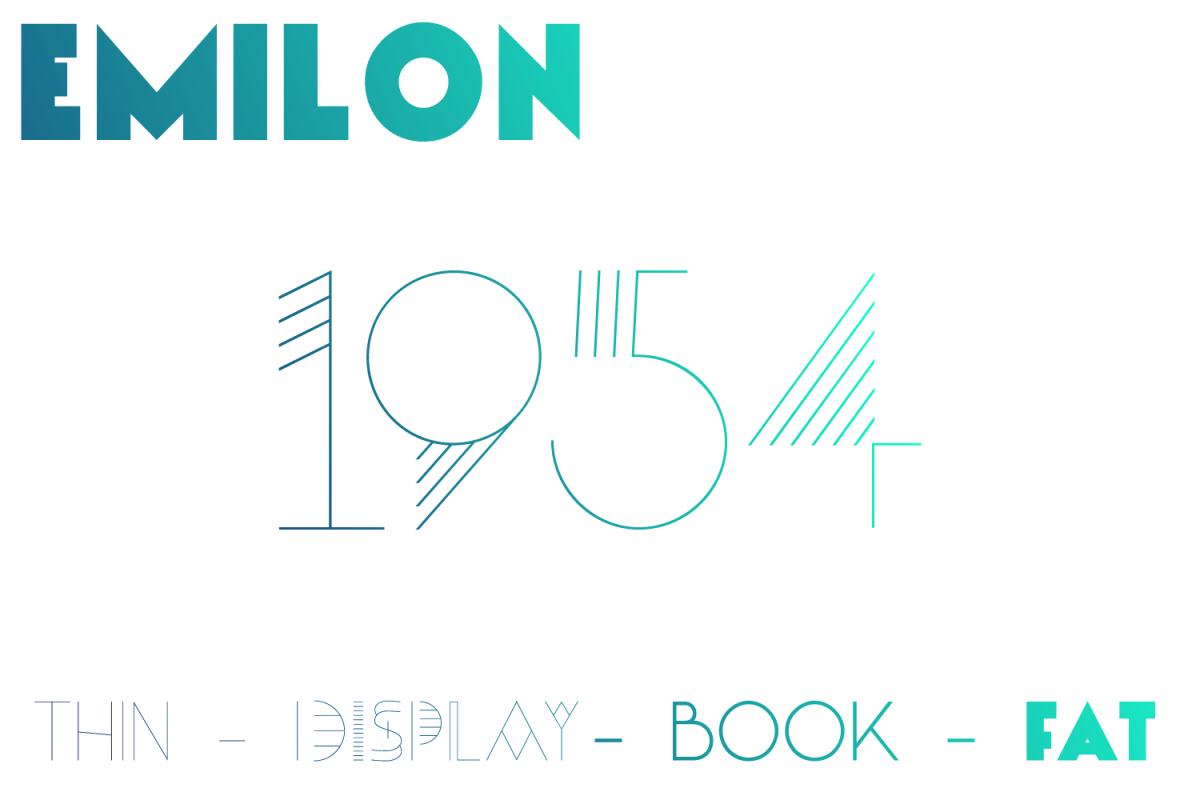
Emilon Family
Emilon-Book
Emilon-Display
Emilon-Fat
Emilon-Thin
This is the Emilon type family from tyntyp.
This geometric fonts allows itself for use as a display font but also works well for longer portions of text, thanks to it's rigid characters and strong geometrical features.
The Fat & Display versions work great for titles, giving a special something to your product.